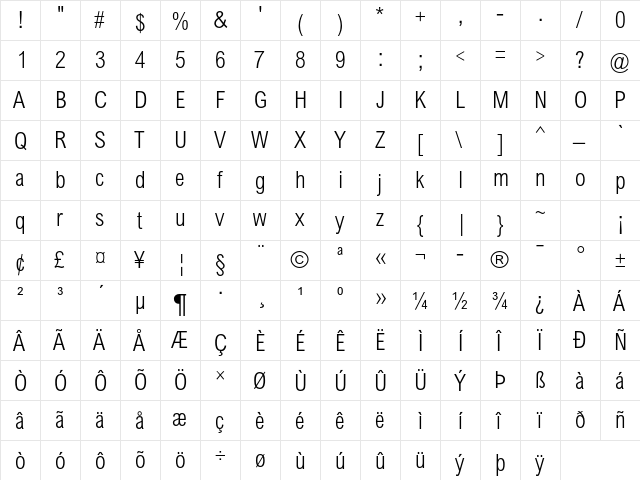
Arial MT Std Light Cond
| Foundry | Agfa Monotype Corporation |
Design Context for Arial MT Std Typeface
Arial MT Std takes a measured approach to typography — its balanced proportions and neutral character make it a reliable workhorse for both digital and print work. Its slender proportions lend an understated elegance to any composition. Its narrow stance lets it pack a punch even in space-constrained designs.